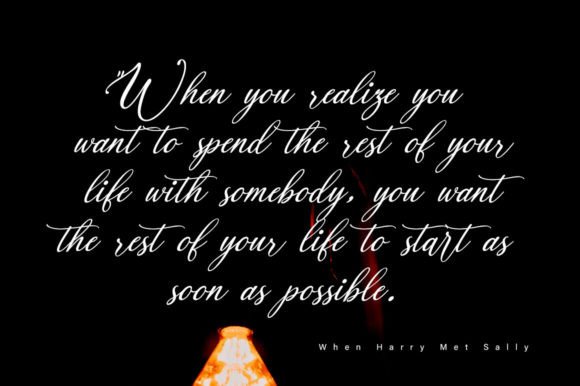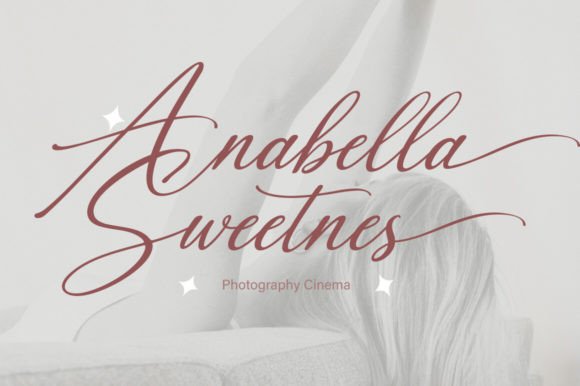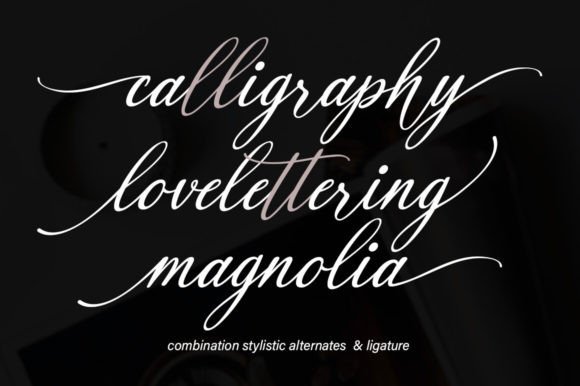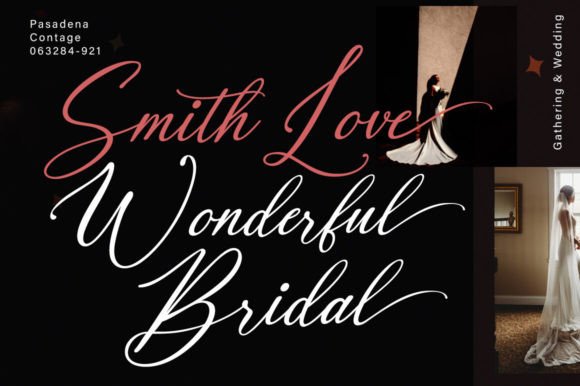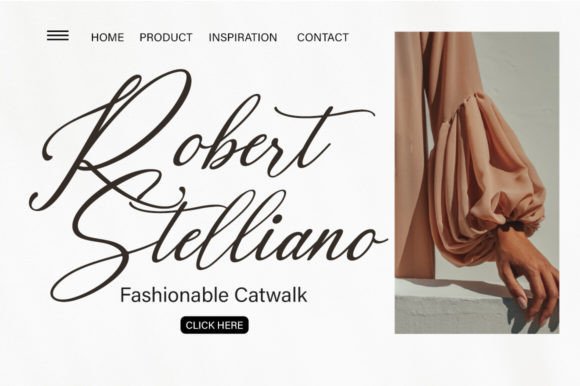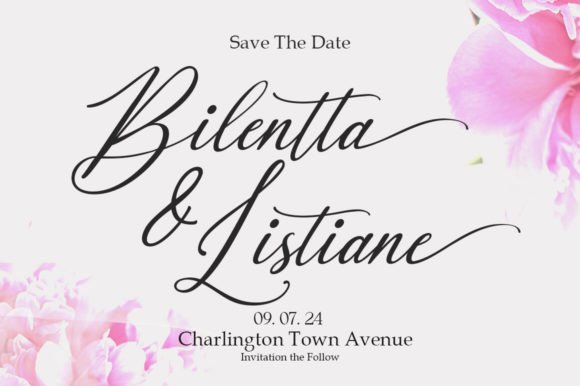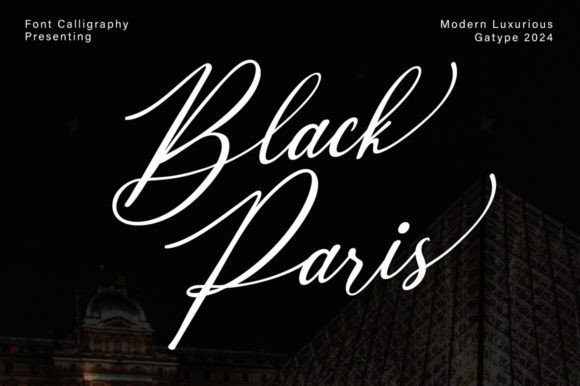
Introducing Black Paris Font: Elevate Your Designs with Elegance and Style
In the world of typography, a new star has emerged: the Black Paris Font. This latest, modern calligraphy font is making waves among designers and crafters alike, and for good reason. Black Paris is the epitome of elegance and sophistication, making it the perfect addition to your design arsenal. Whether you’re working on wedding invitations, save-the-date cards, or feminine branding, this beautiful script is sure to impress.
The Beauty of Black Paris Font
Black Paris Font is a stunning example of modern calligraphy. Its fluid strokes and intricate details evoke a sense of luxury and refinement. This font is designed to add a touch of glamour to any design, making it perfect for projects that require a high level of sophistication. The unique blend of classic and modern elements sets Black Paris apart from other calligraphy fonts, making it a versatile choice for a wide range of design applications.
Perfect for Wedding Designs
Wedding designers, rejoice! Black Paris Font is a dream come true for those who specialize in wedding stationery. The font’s elegant and refined aesthetic makes it perfect for wedding invitations, save-the-date cards, and thank-you notes. The beautiful script will add a touch of romance and sophistication to any wedding design, making it a memorable and cherished keepsake for couples. Additionally, Black Paris Font pairs well with a variety of other fonts and design elements, giving you endless possibilities for creative expression.
Feminine Branding Made Easy
Black Paris Font is also an excellent choice for feminine branding. The font’s delicate and elegant aesthetic makes it perfect for businesses that cater to women or offer products and services that are traditionally associated with femininity. Whether you’re designing a logo, business card, or website, Black Paris Font will add a touch of sophistication and glamour to your brand. This font is sure to help you establish a strong brand identity that resonates with your target audience.
Key Features of Black Paris Font
- Modern Calligraphy Style: Black Paris Font boasts a beautiful, modern calligraphy style that’s perfect for designs that require elegance and sophistication.
- Elegant and Refined Aesthetic: The font’s fluid strokes and intricate details evoke a sense of luxury and refinement.
- Versatile: Black Paris Font is perfect for a wide range of design applications, including wedding invitations, save-the-date cards, and feminine branding.
- Easy to Pair with Other Fonts: The font pairs well with a variety of other fonts and design elements, giving you endless possibilities for creative expression.
Tips for Using Black Paris Font
To get the most out of Black Paris Font, here are a few tips to keep in mind:
- Use it as a Headline Font: Black Paris Font is perfect for headlines and titles. Use it to add a touch of elegance and sophistication to your design.
- Pair it with a Serif Font: Pair Black Paris Font with a serif font for a classic and timeless look.
- Experiment with Colors: Black Paris Font looks stunning in a variety of colors. Experiment with different hues and shades to find the perfect combination for your design.
In conclusion, Black Paris Font is a beautiful and elegant script that’s perfect for designers and crafters who need to add a touch of sophistication to their designs. With its modern calligraphy style, elegant aesthetic, and versatility, Black Paris Font is sure to become a staple in your design arsenal. Whether you’re working on wedding invitations, save-the-date cards, or feminine branding, this font is sure to impress. So why wait? Give Black Paris Font a try today and elevate your designs to the next level!